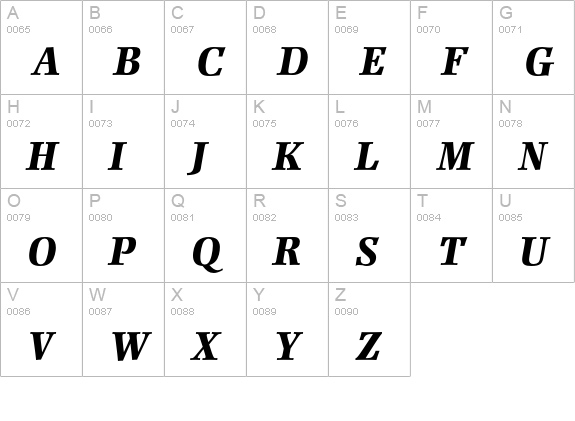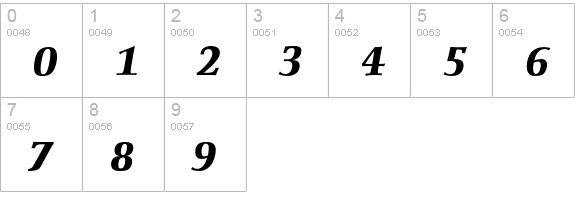
Ellington Extra Bold Italic Font Details
Ellington Extra Bold Italic is a strong, high-contrast, italic variant in the Ellington typeface family \xE2\x80\x94 well suited to headlines, attention-grabbing titles, and strong calls-to-action.
Ellington Extra Bold Italic is a striking and contemporary typeface that exudes confidence and sophistication. Its bold and italic design makes a bold statement while maintaining a sense of elegance and style. The sharp angles and sleek lines of this font give it a modern edge, perfect for a variety of design projects. Designed for headers, titles, and emphasis, Ellington Extra Bold Italic commands attention and adds a touch of flair to any text. Its versatility allows it to be used across a wide range of applications, from branding and advertising to editorial design and web content. Best of all, Ellington Extra Bold Italic is completely free to download at FontsMarket.com, making it accessible to designers and creatives looking to elevate their projects with a high-quality typeface. Don't miss out on this opportunity to enhance your designs with the bold and stylish Ellington Extra Bold Italic font.